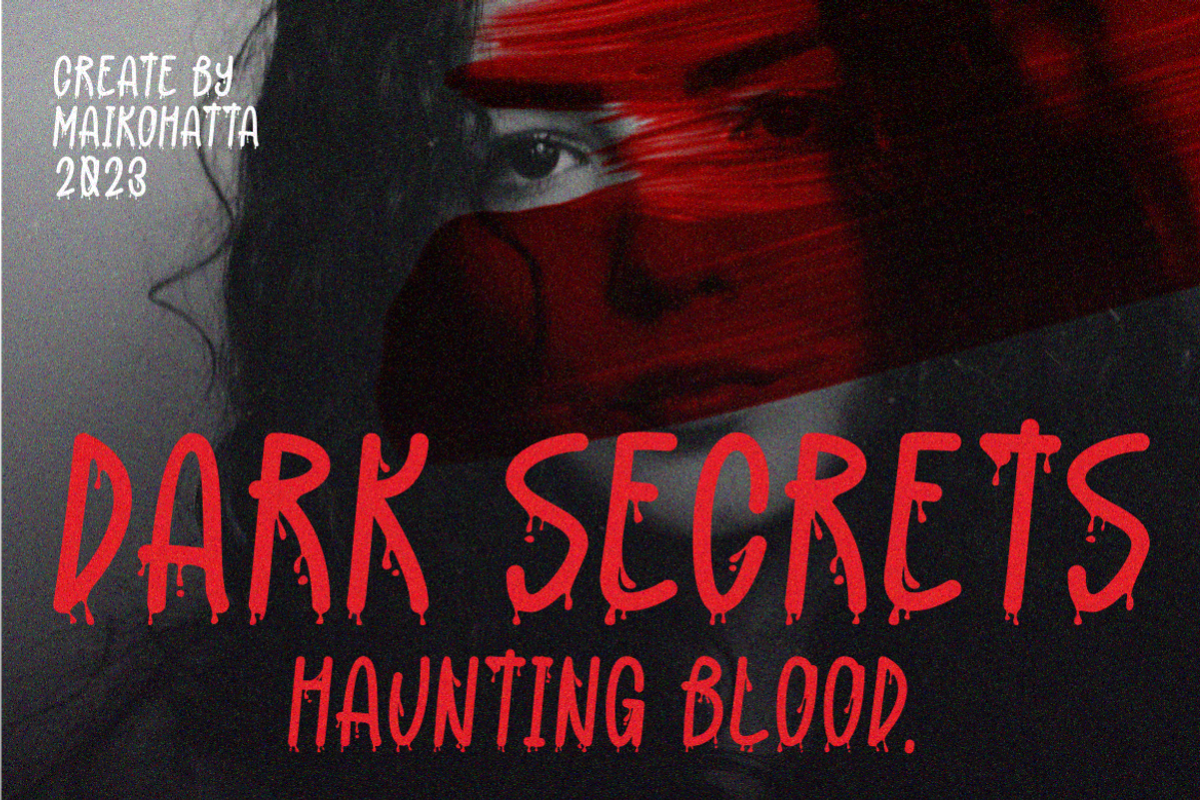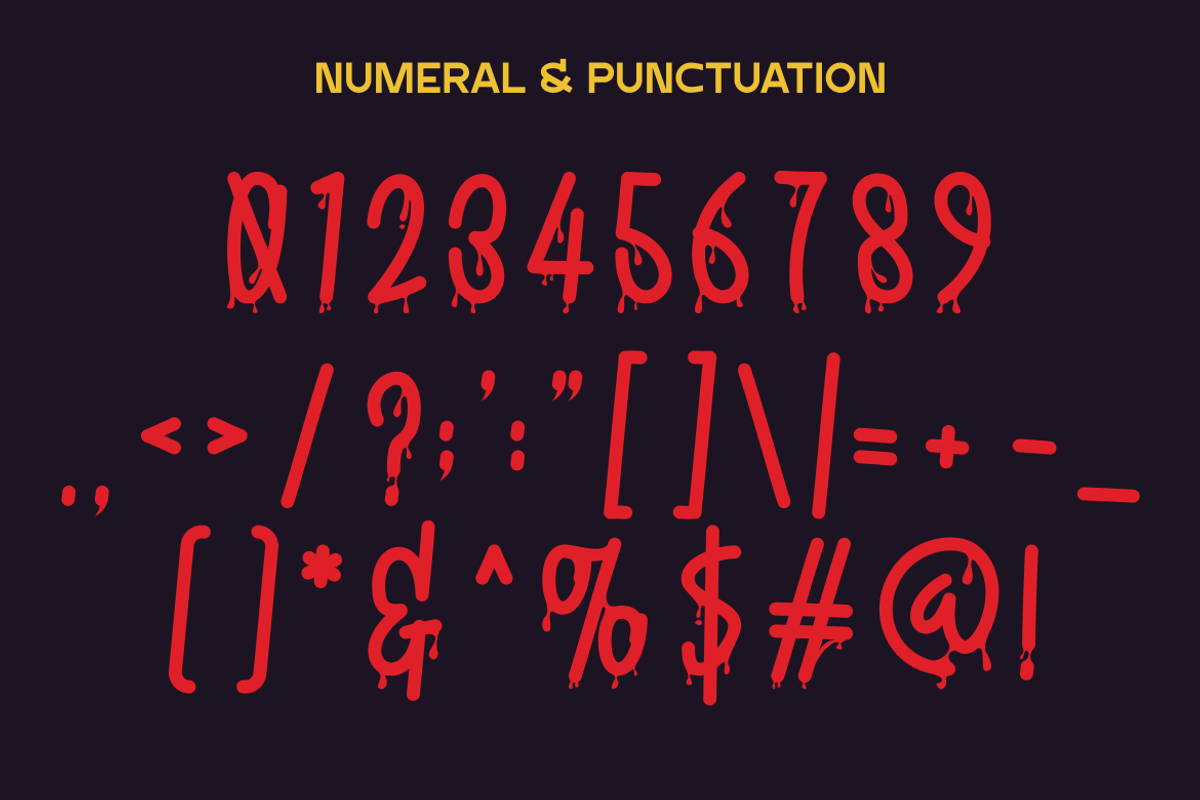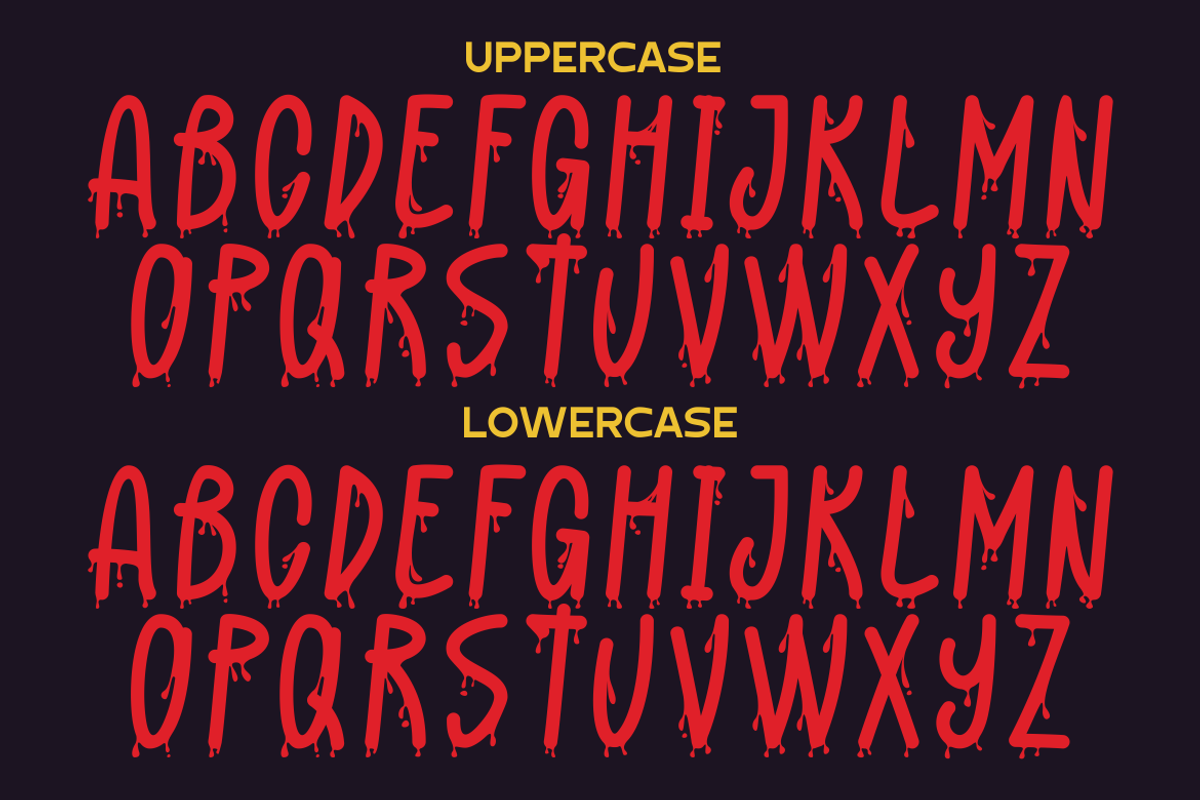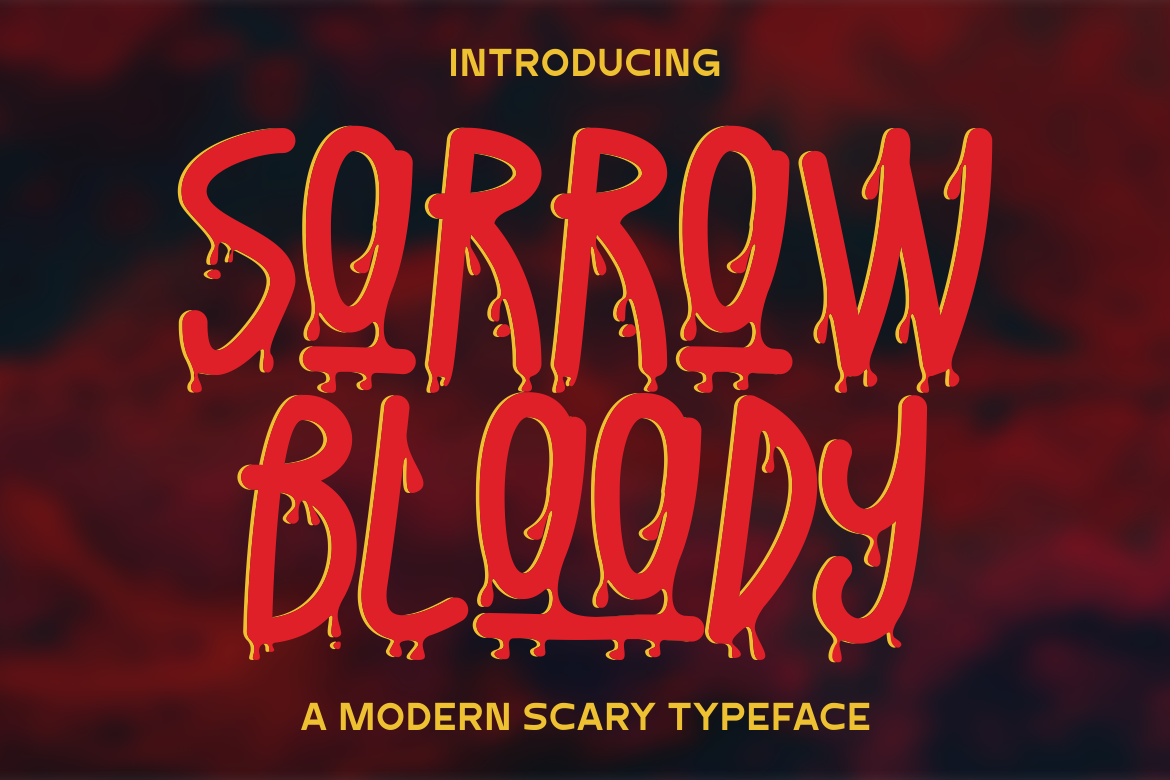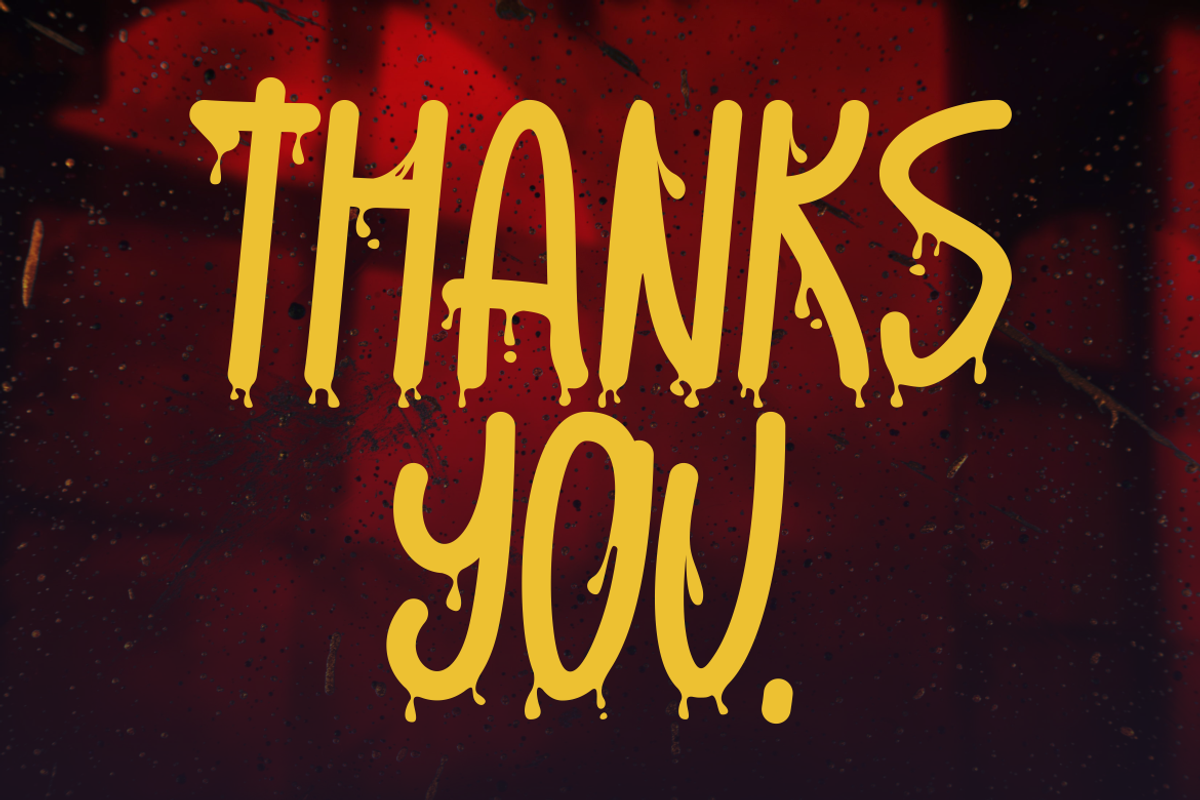
SorrowBloody - Modern Scary Typeface
Introducing our new product Sorrow Bloody - Modern Scary Typeface
Sorrow Bloody is a type of font specifically designed to create a spooky, mysterious atmosphere and depict the spirit of Halloween celebrations. This font can be used in various Halloween-related media, such as party invitations, posters, merchandise designs, greeting cards, warning signs, or within website designs with Halloween themes.